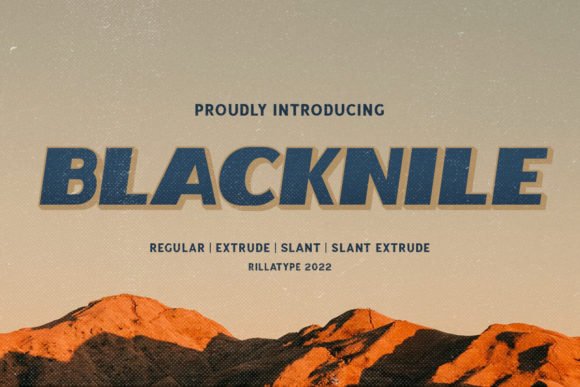
Unleashing Bold Creativity with Blacknile Font
You know that moment when you’re brainstorming ideas for a new project, and suddenly, the perfect font pops into your mind? For designers, this moment is all too familiar, and it’s exactly what we’re going to dive into with the stunning Blacknile Font.
This bold and rough textured display font is perfect for making a statement in product packaging, branding projects, magazine covers, social media, and even wedding designs. Its unique texture and edgy vibe make it an instant attention-grabber, elevating any design to the next level. Whether you’re a seasoned pro or just starting out, the Blacknile Font is an invaluable addition to your design arsenal.
- Unique Characteristics: The Blacknile font features a modern, elegant design with a mix of geometric and organic elements, making it suitable for a wide range of applications, including branding, advertising, and editorial content.
Designer Review: Blacknile Font
Overall, I’d say the Blacknile font has some great qualities, but also some areas where it falls short. ✨ Let’s dive into what works well first.
- Unique Character: Blacknile font has a distinctive character that can add a touch of elegance to any design.
- Legibility: It’s generally easy to read, even at smaller font sizes.
- Professional Look: The font has a professional, high-end feel that’s perfect for corporate or luxury branding.
Now, onto the limitations: ⚠️
- Limited Font Families: The Blacknile font family is relatively small, which can limit its versatility in certain projects.
- Not Ideal for Body Text: While it’s great for headings or titles, Blacknile font may not be the best choice for large blocks of body text due to its formal, high-end feel.
- Lack of Customization Options: The font doesn’t offer many customization options, which may be a drawback for designers who like to experiment with font styles.
Overall, I’d say Blacknile font is a solid choice for designers who want to add a touch of sophistication to their projects. However, it may not be the best fit for every design task, and its limitations should be carefully considered before making a final decision.
The Blacknile Font is ideal for creative and modern designs, such as logos, branding materials, and advertisements.
For best results, pair the Blacknile Font with bold and bright colors to create a striking visual effect.
Experiment with different font sizes and styles to create a unique and eye-catching design.